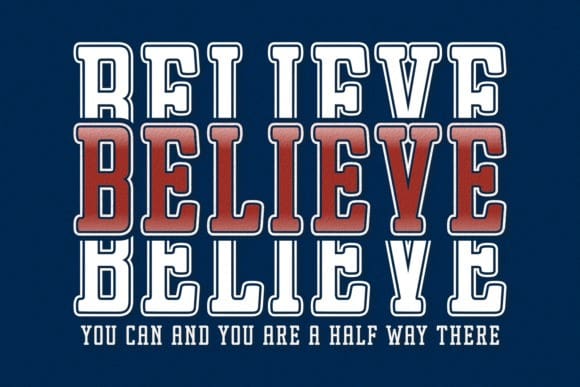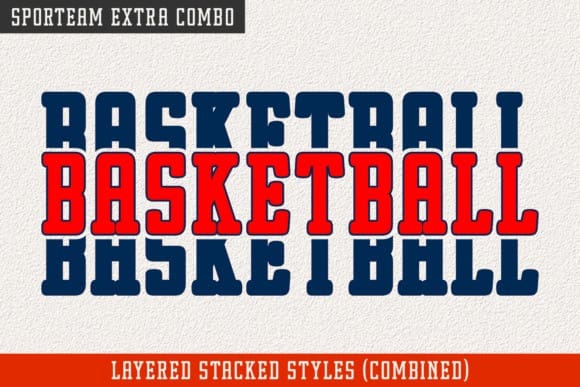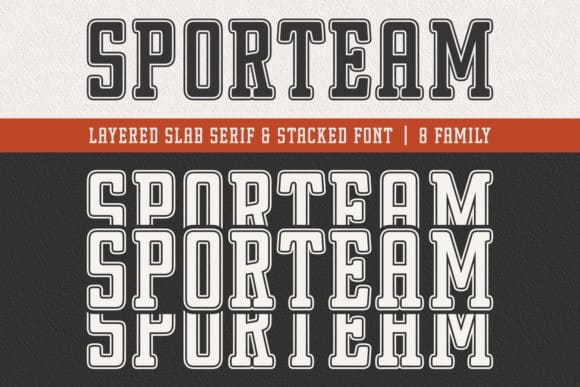
Sporteam Font
Sporteam Font is a cool, vintage styled and sporty slab serif font. This original look will appeal to a wide range of crafty ideas, from letterheads and titles, to stationery.